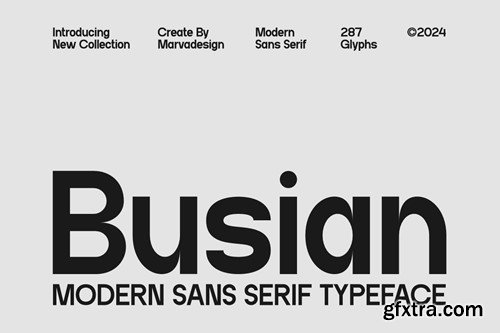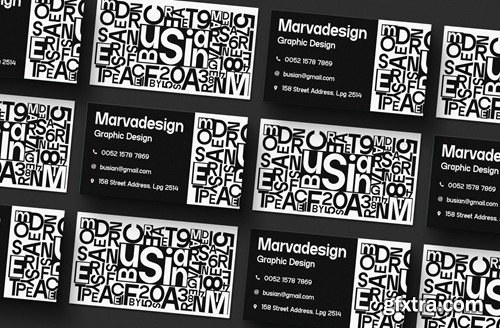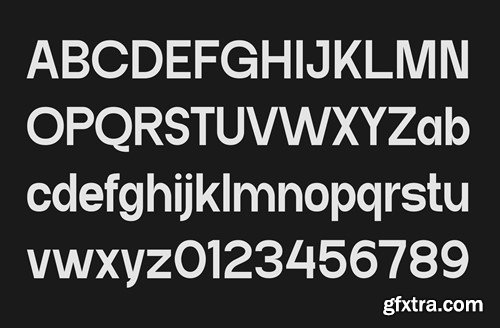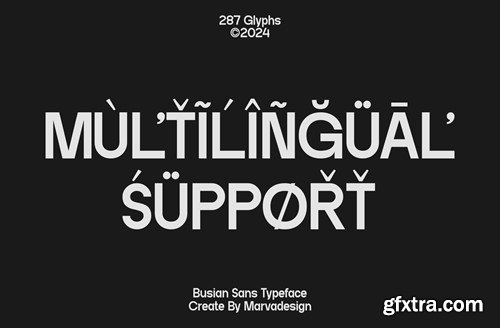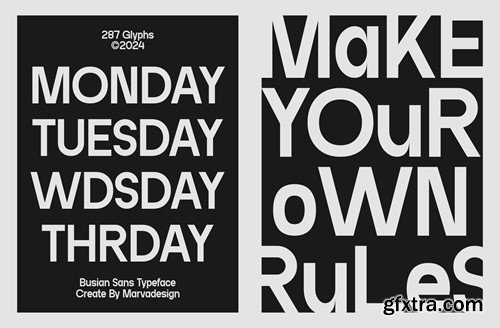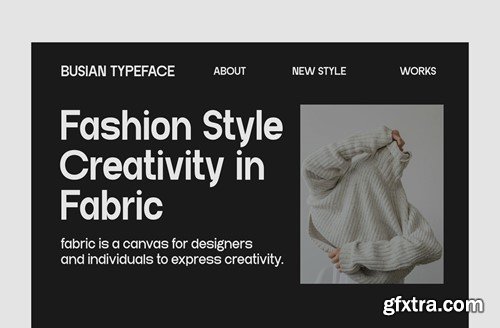
Busian - Sans Serif Geometric Font 6J63P69
Busian - Sans Serif Geometric Font
Introducing our new product Busian Font - Sans Serif Geometric Font Busian Font -Sans Serif Geometric Font authentic display font. The font is suitable for any branding project like logo, Template Design, Product and many more. outstanding in a wide range of contexts.
• Uppercase
• Lowercase
• Multilingual
• Ligature